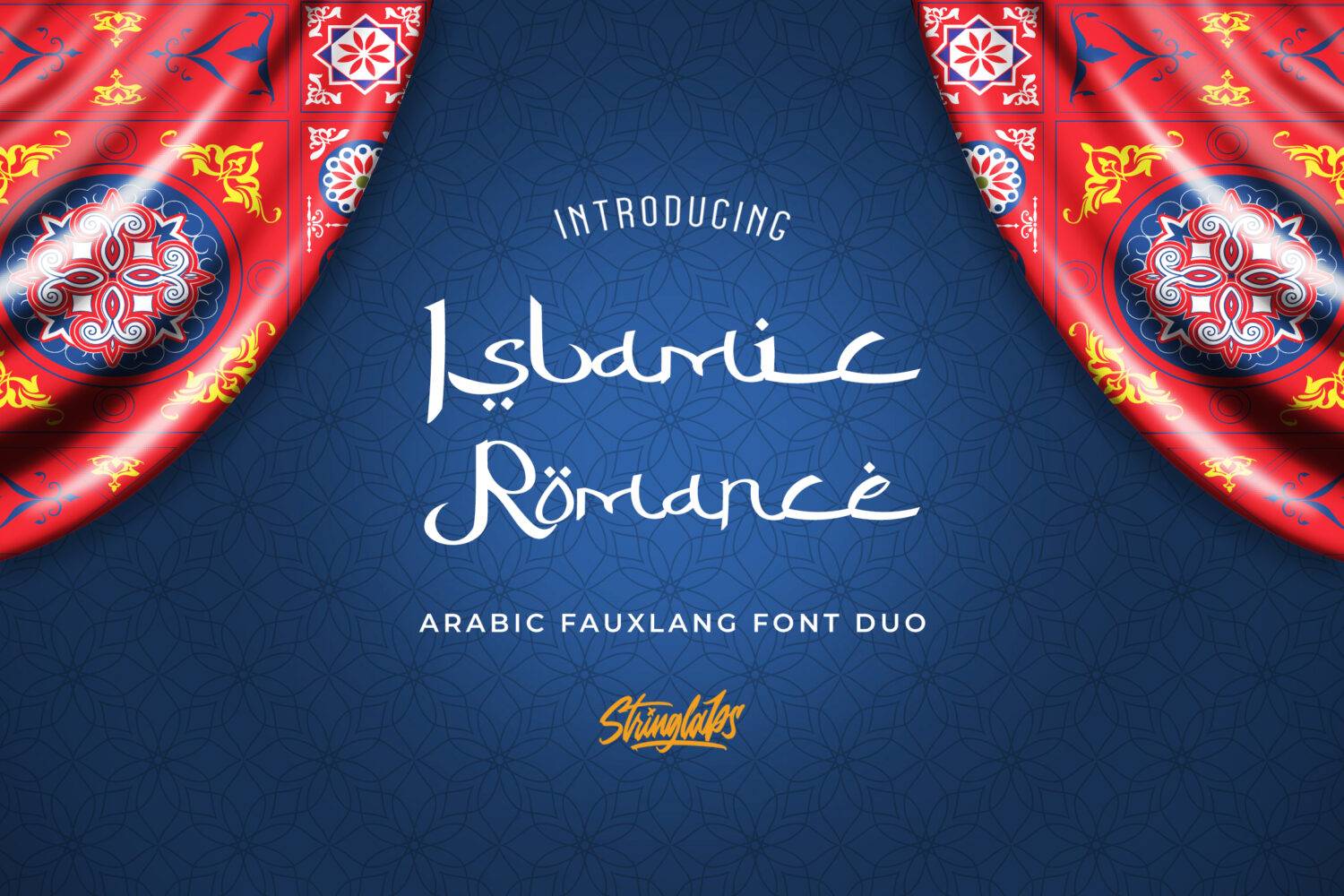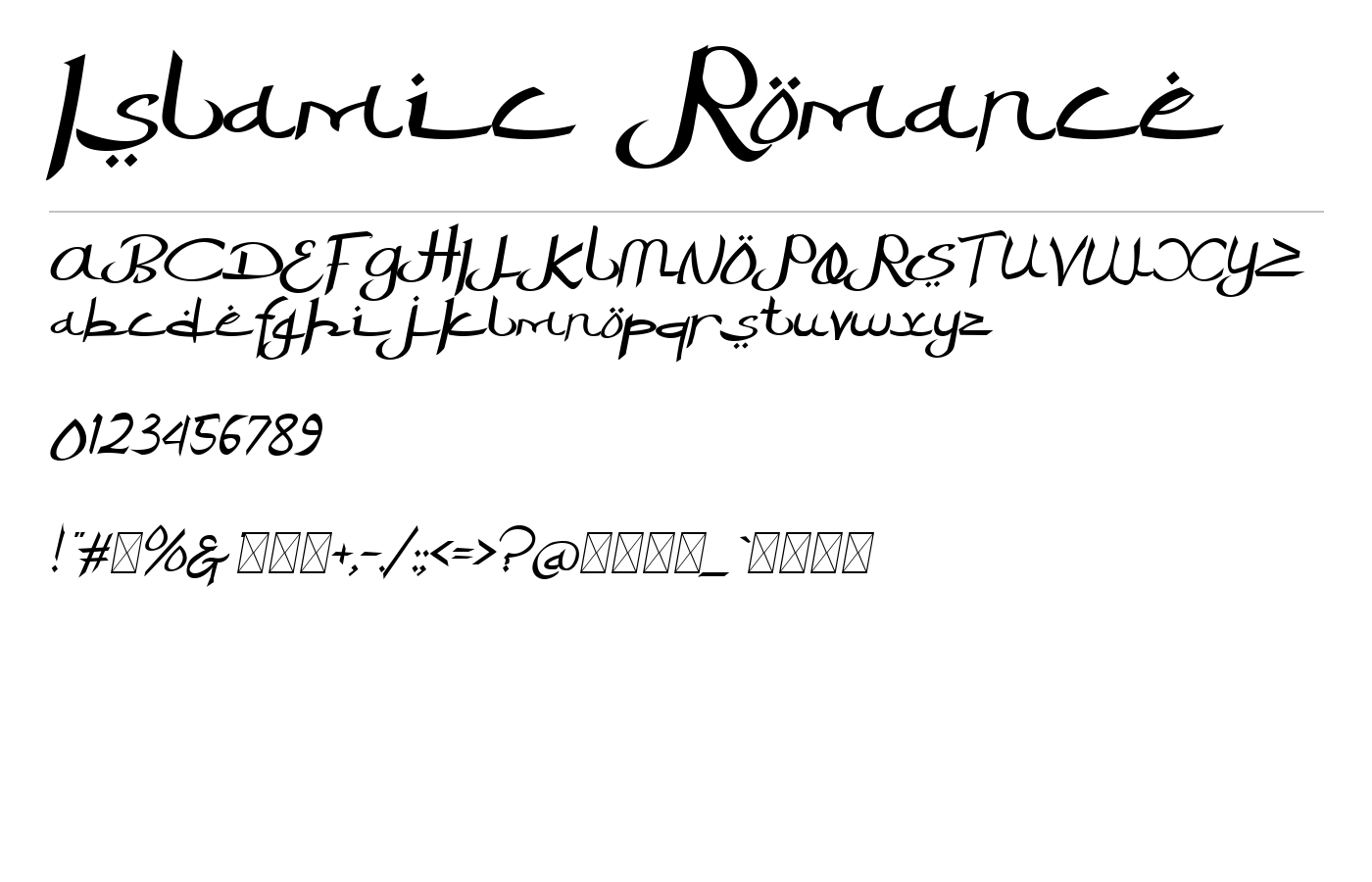
Islamic Romance is a unique script-style font that blends slender, flowing strokes with a slightly angular, artistic flair, evoking a sense of elegance and cultural charm. Its tall x-height and graceful curves make it ideal for creative headlines, invitations, and branding projects that seek a refined yet distinctive look with a touch of exotic sophistication. This font works best in decorative contexts where its delicate, calligraphic personality can shine.
Islamic Romance Font
About Islamic Romance Font